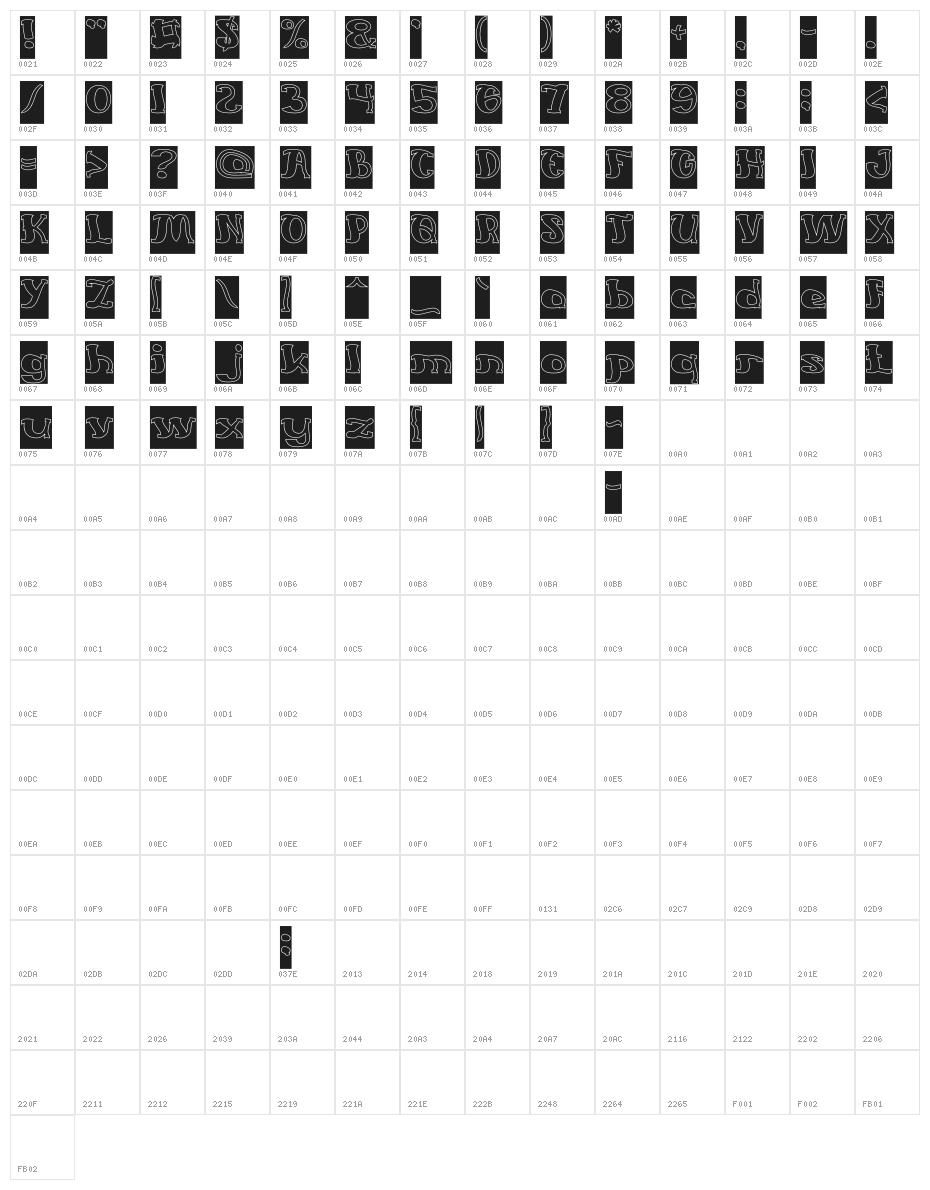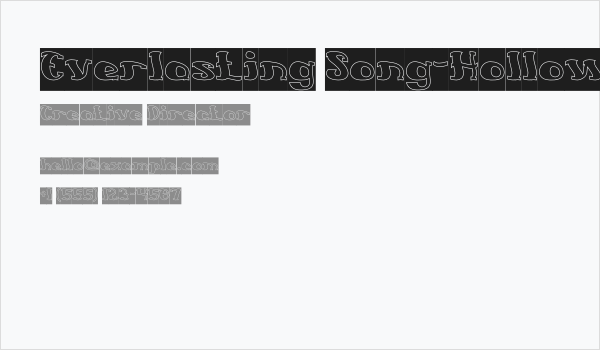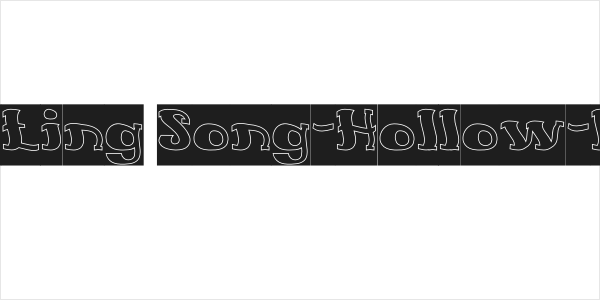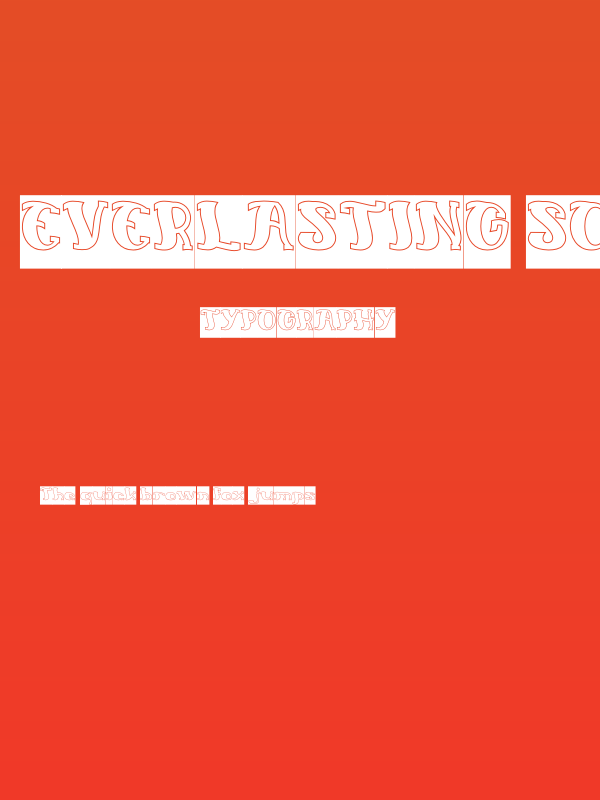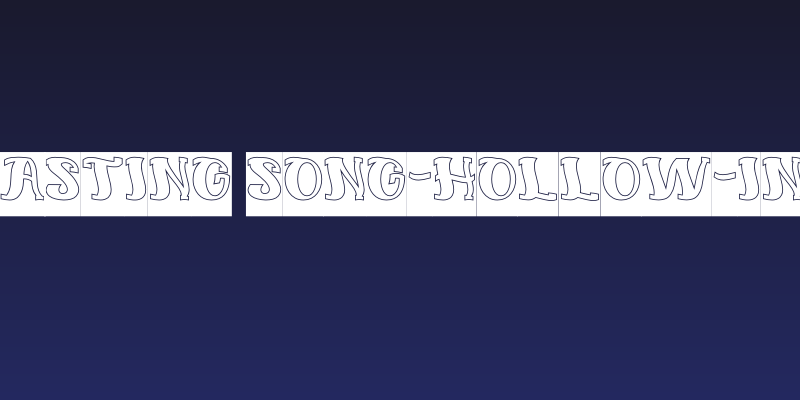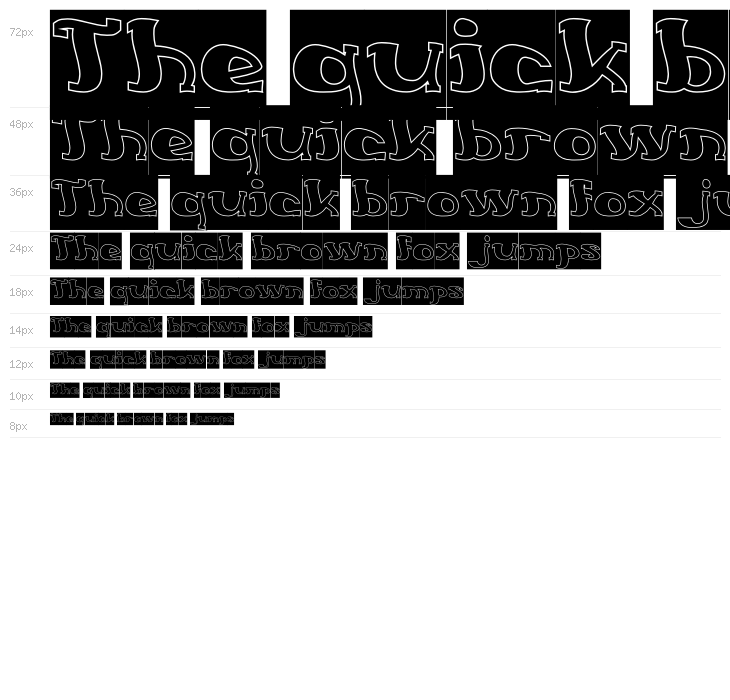
Everlasting Song-Hollow-Inverse Font
Everlasting Song-Hollow-Inverse Description
This font features a playful and whimsical design with hollow, inverse letters that create a striking visual impact. The characters have a bold outline with a hollow interior, giving them a unique and eye-catching appearance. The style is reminiscent of hand-drawn or cartoon-like lettering, with each character exhibiting a slightly irregular and organic shape. The uppercase and lowercase letters maintain a consistent style, while the numbers and special characters complement the overall design. This font is ideal for projects that require a fun and informal touch.
Proposed ProjectsIdeal for children's books, playful branding, party invitations, and creative posters.